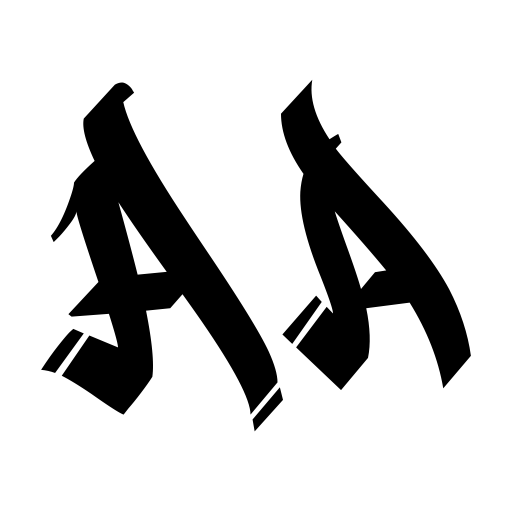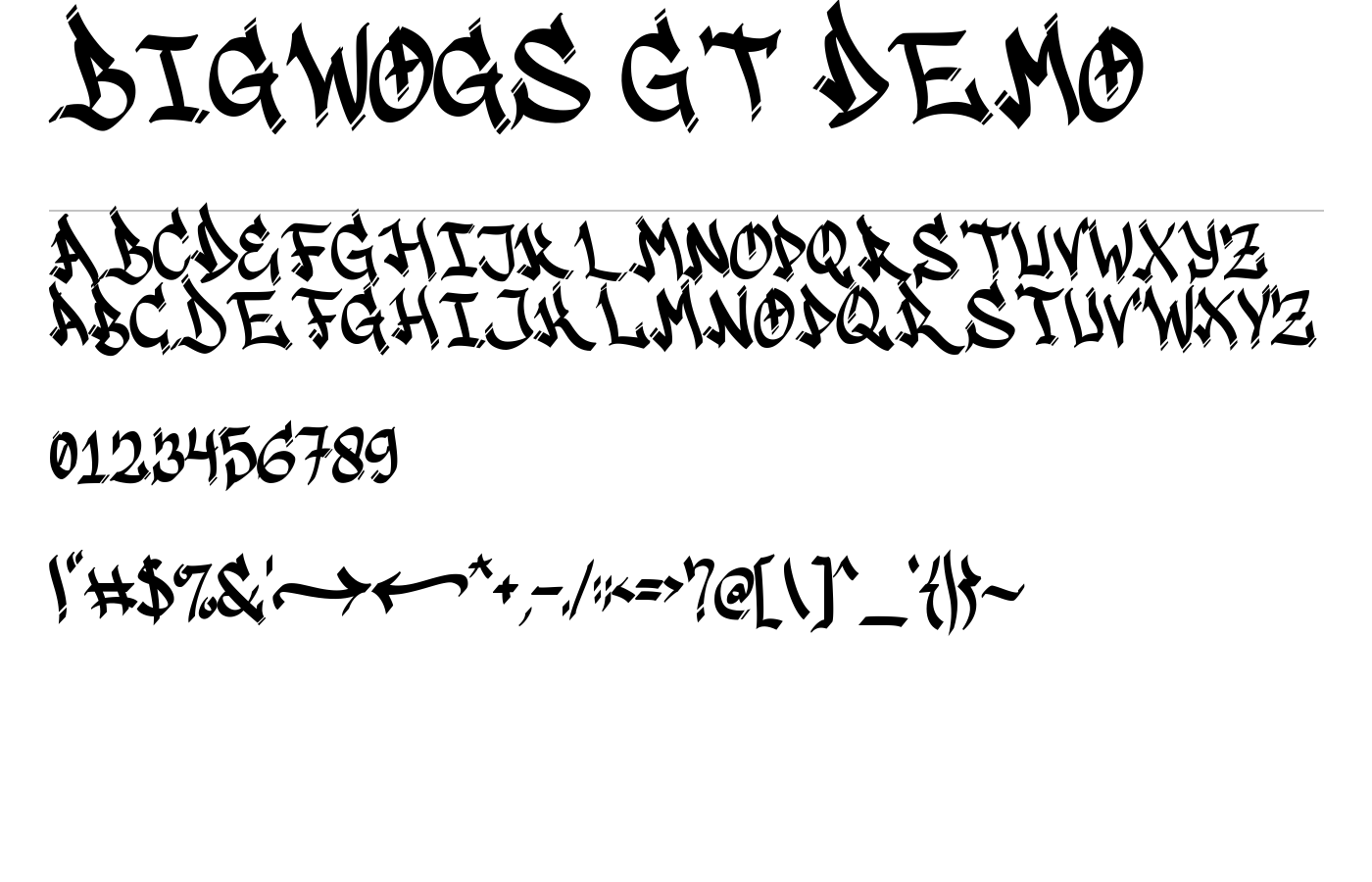
Bigwogs GT is a bold, decorative serif font with a unique, edgy style that blends gothic and calligraphic influences. Its sharp, stylized strokes and irregular letterforms create a dynamic and dramatic effect, making it perfect for eye-catching headlines, posters, and brands seeking a strong, artistic personality. This font works best in creative design contexts where a striking and unconventional look is desired.
About Bigwogs GT Font